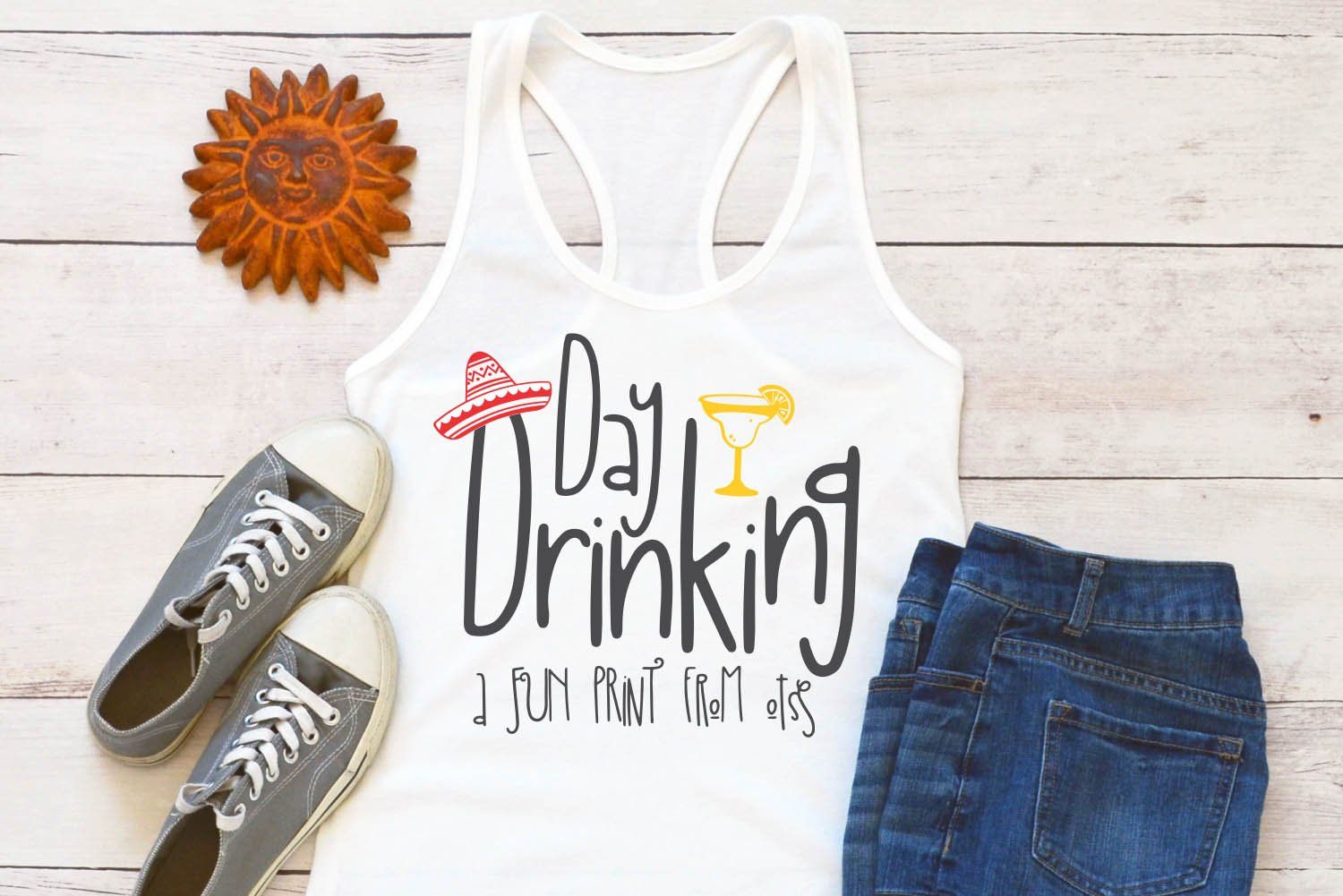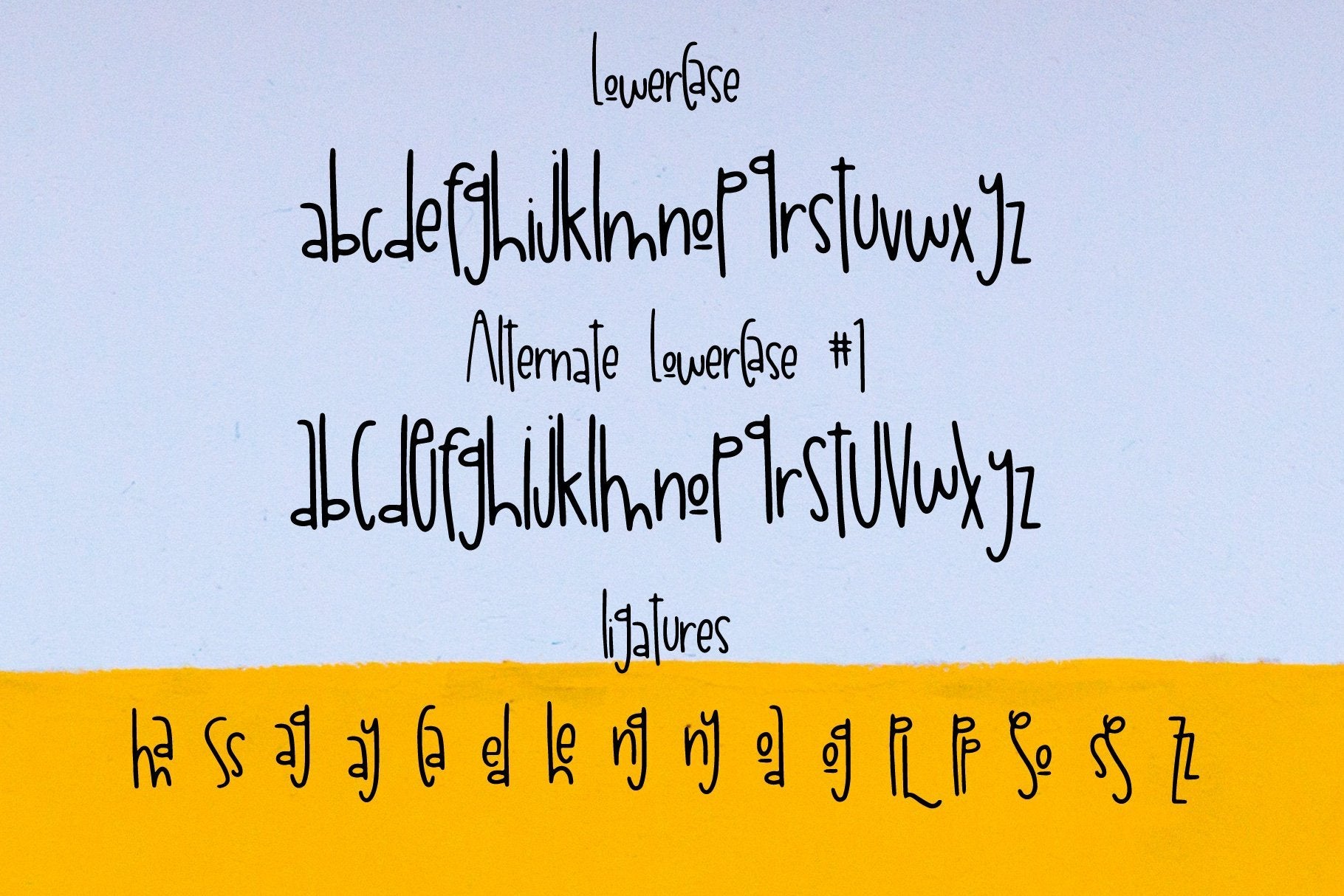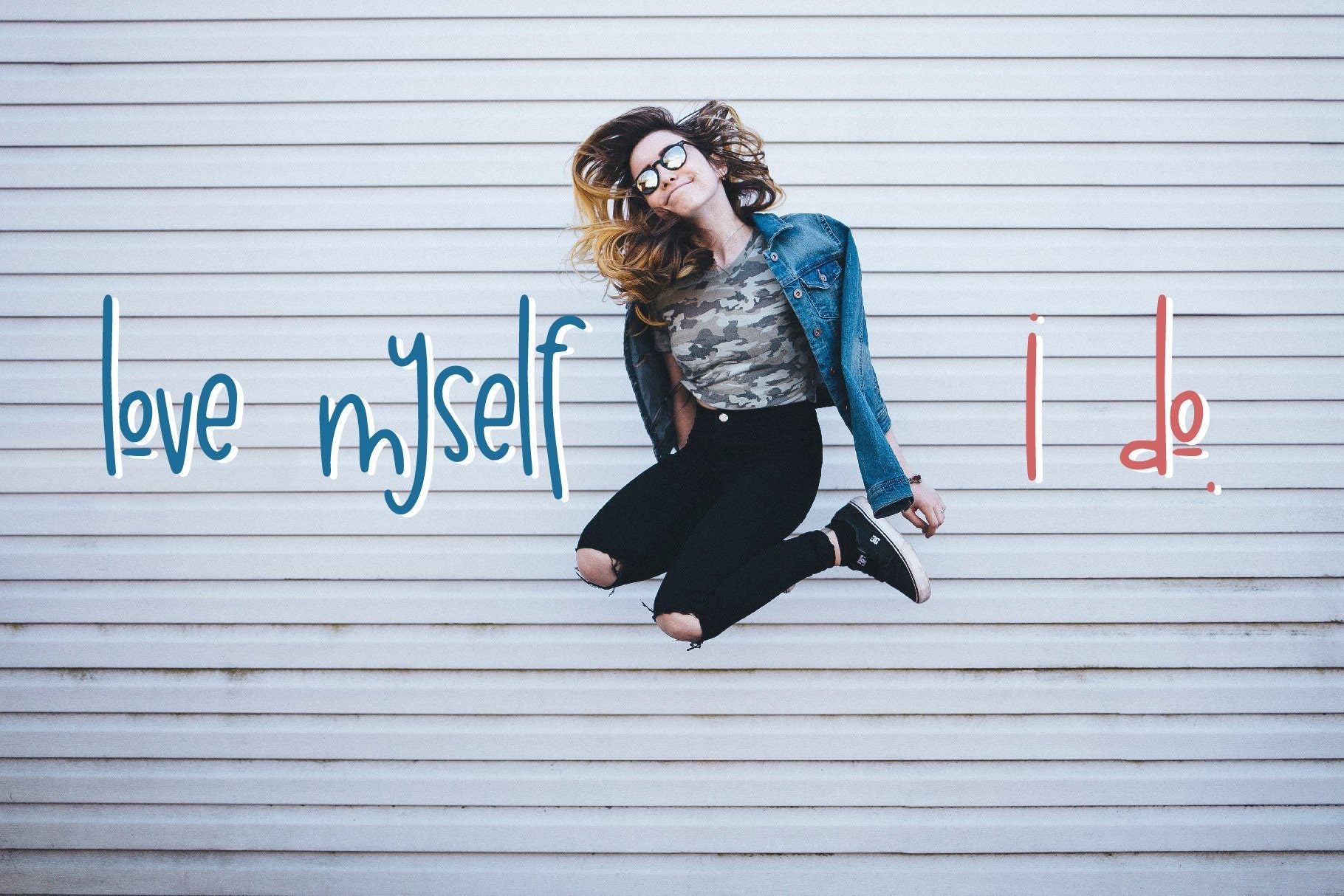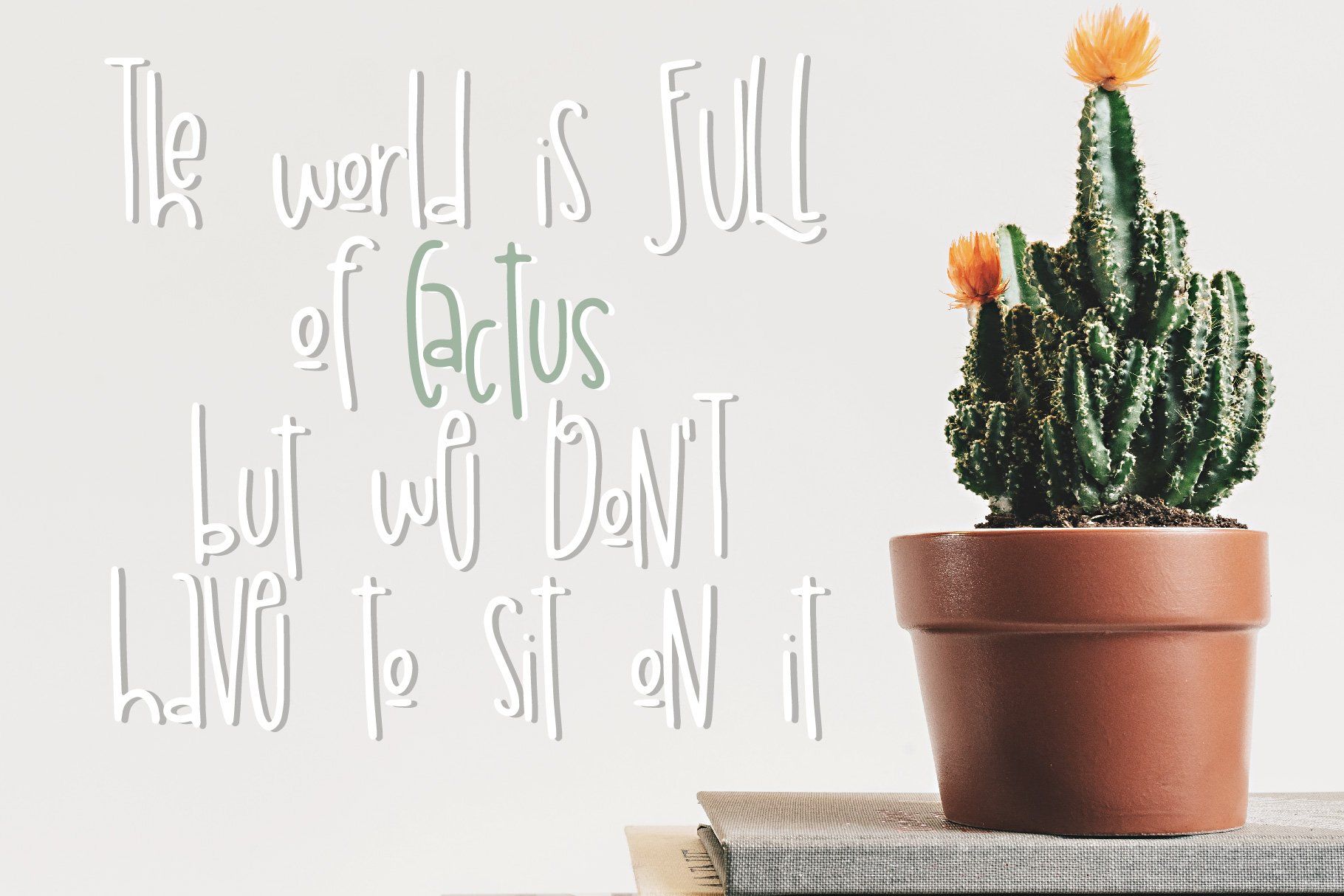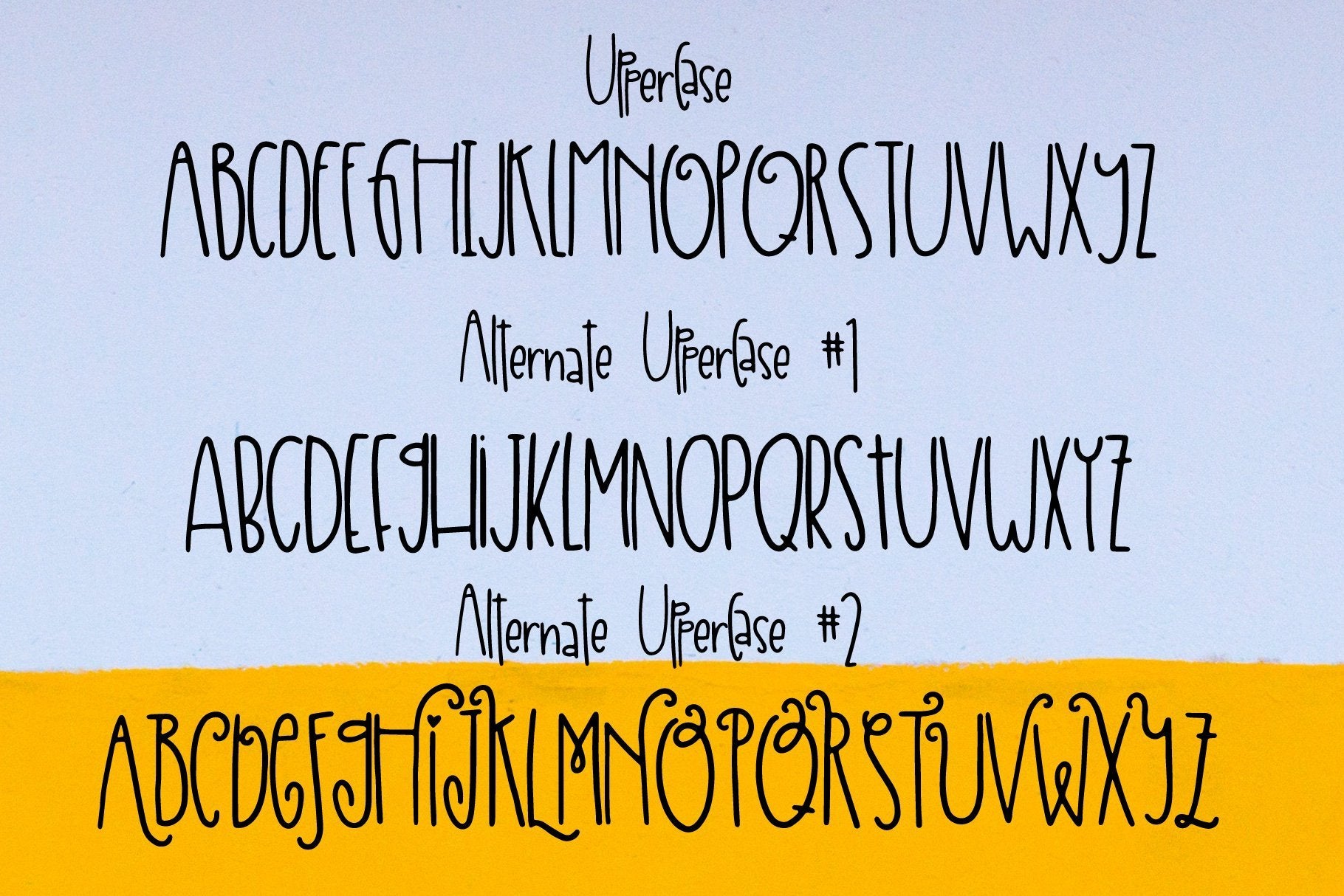
Everyyyyyyybody loves Day Drinking! Introducing my newest font, complete with THREE uppercase sets, TWO lowercase sets, accented characters, punctuation and numbers! This font has so much quirk.